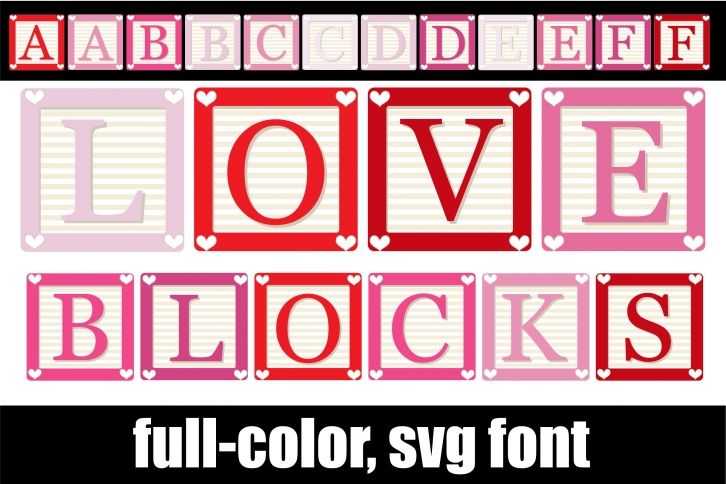
This full-color font features childhood blocks with a love-inspired color palette. There is a second upper and lower alt case you can access through your system’s character map.